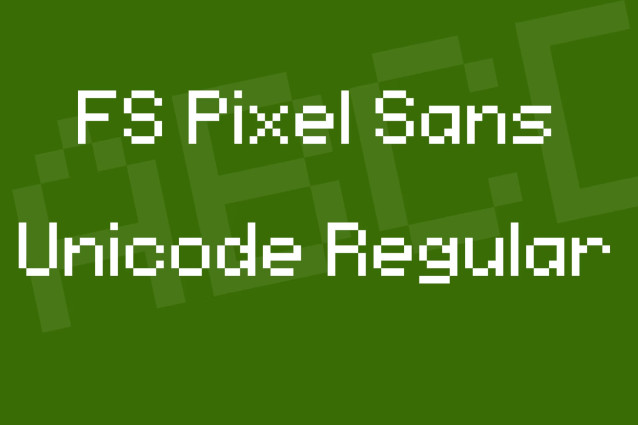
FS Pixel Sans Unicode Font
FS Pixel Sans Unicode Regular is a font made by NZW Studios. FS Pixel Sans Unicode is a cool pixel display font, perfect for retro game design themes. Use this captivating font for creating unique t-shirt designs, covers, headlines, posters, or anything that needs a retro accent.